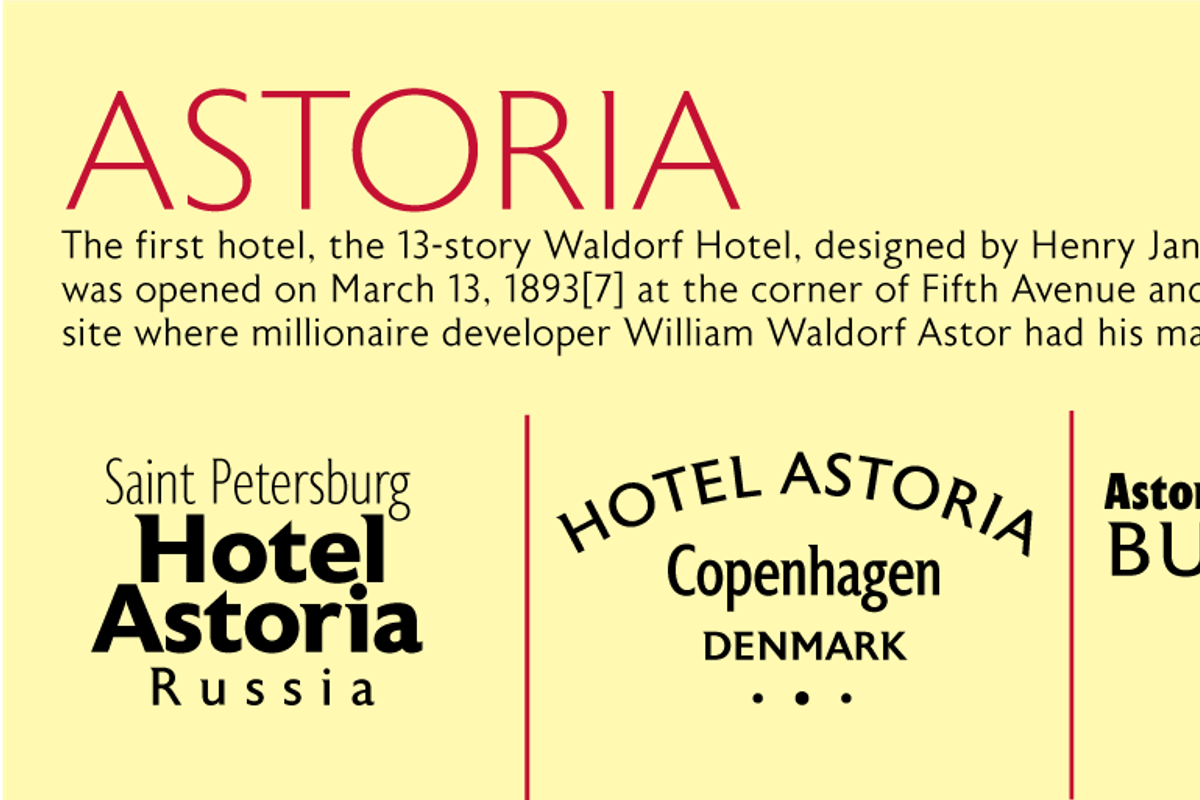
Astoria
Astoria is a humanist sans serif typeface designed by Alan Meeks. It draws inspiration from Gill Sans, particularly in its mid-weight styles, and features a subtle top-left serif that gives it a unique character. While categorized as both a serif and a sans serif font, Astoria excels as a versatile text face, suitable for extended reading due to its readability. It also performs well as a headline font, showcasing its adaptability.